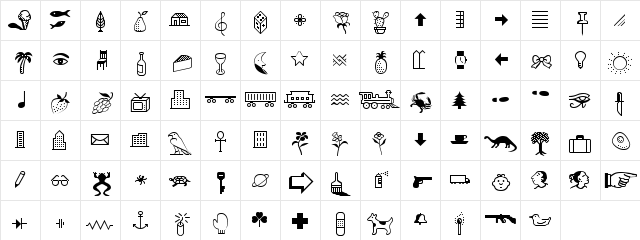
DTP Works Regular
Design Context for DTP Works Typeface
DTP Works is a composed and adaptable typeface that performs quietly and consistently across a wide range of design contexts.